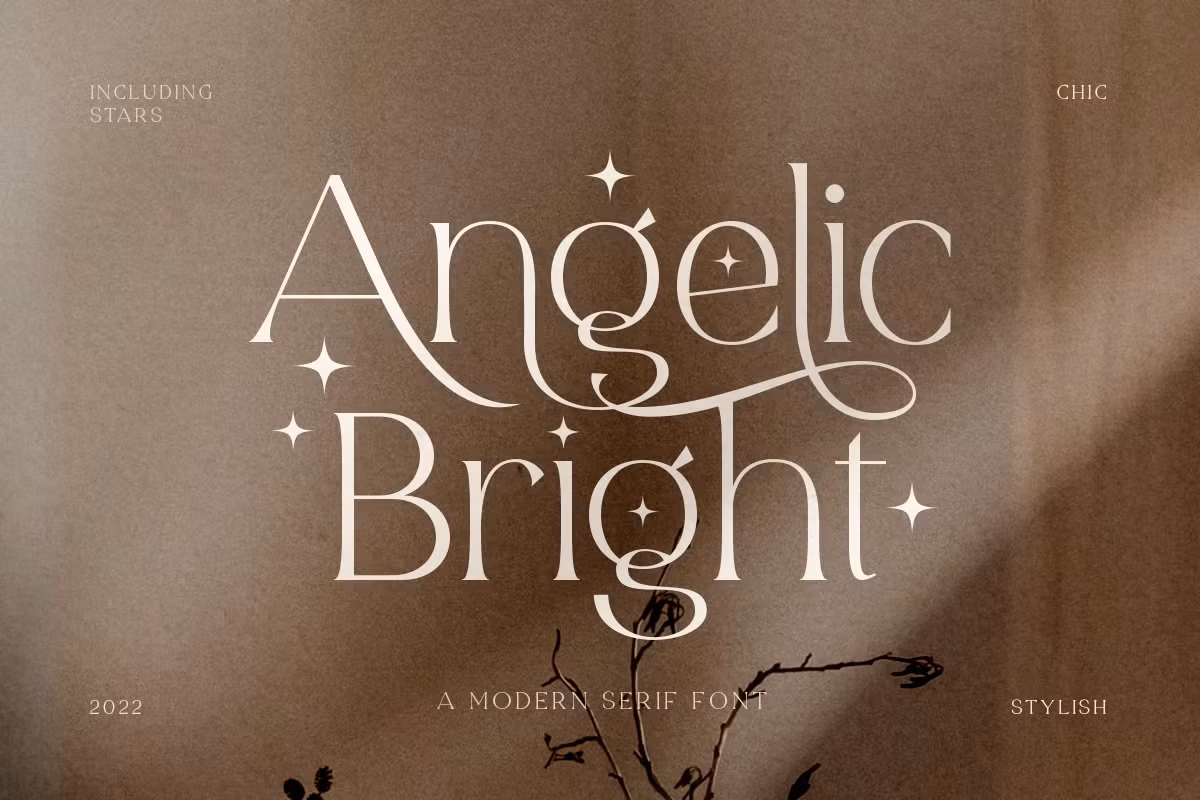
Angelic Bright - Modern Serif Font Free Download
Angelic Bright - Modern Serif Font Free Download is an elegant and sophisticated typeface designed to add a touch of refinement to your designs. Featuring clean lines, sharp serifs, and a modern aesthetic, this font is perfect for creating stylish logos, websites, branding materials, and editorial layouts. Its timeless design ensures it works well for both professional and creative projects, offering clarity and class. Whether you're designing a luxury brand, a chic website, or a high-end marketing campaign, Angelic Bright - Modern Serif Font Free Download allows you to explore its beautiful style in personal projects before purchasing a commercial license. Add sophistication and modern elegance to your work with this beautifully crafted serif font.